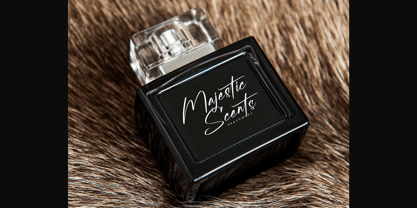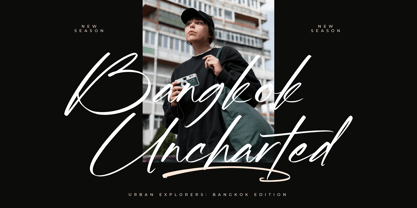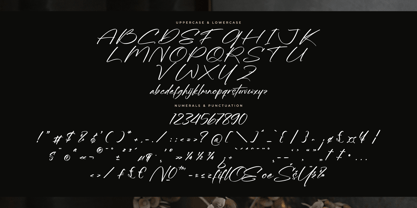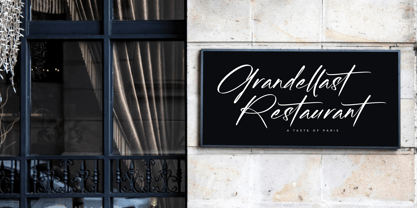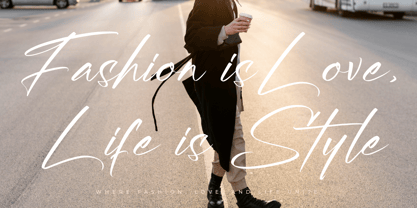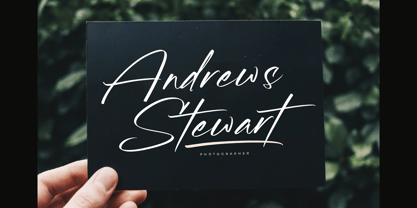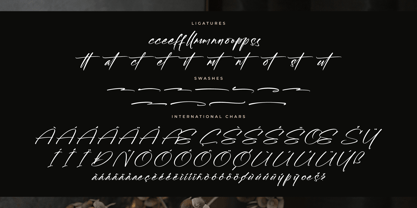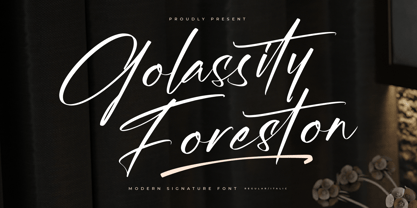
Golassity Foreston
The Golassity Foreston Font Family was designed by Heru Utama Putra and published by Letterena Studios. Golassity Foreston contains 2 styles and family package options. More about this family
Golassity Foreston is a dazzling handwritten script font that radiates elegance and charm. Its graceful curves and intricate details evoke a sense of sophistication, making it perfect for wedding invitations, branding, and other upscale designs. With its enchanting style, this font adds a touch of luxury to any project.